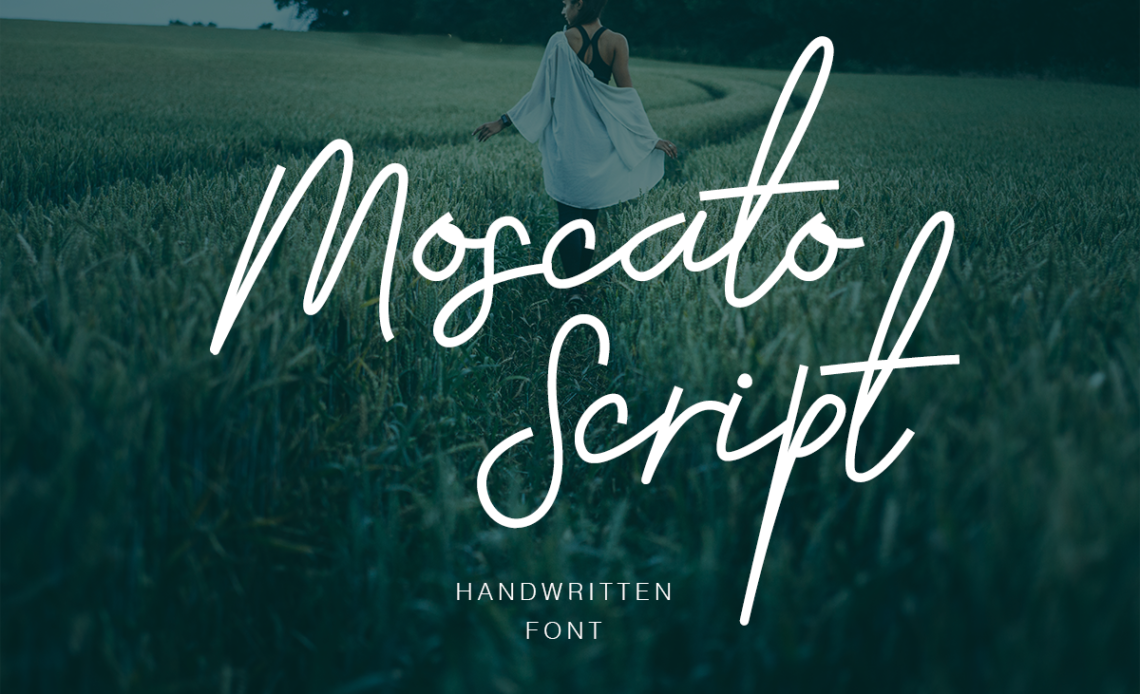
Dive into the world of sophisticated typography with Moscato Font, a script font family that exudes elegance and charm. Designed by the creative minds at Factory738, Moscato is more than just a font; it's a work of art, a brushstroke of creativity that will elevate your designs to new heights.
Prepare to be mesmerized by Moscato's sharp, dapper handwritten style, a unique blend of angular designations and captivating appeal. Each letter dances across the page, telling a story of finesse and grace. Whether you're creating logos, invitations, social media graphics, or any other design project, Moscato will add a touch of sophistication and personality that will leave a lasting impression.
With Moscato, you're not just downloading a font; you're embarking on a creative journey, a voyage where your words are transformed into stunning visual masterpieces. Its versatility knows no bounds, allowing you to craft designs that are both timeless and contemporary, classic and edgy. The possibilities are endless, limited only by your imagination.
Moscato is the perfect font for those who appreciate the finer things in life, those who seek beauty in every detail. It's a font that speaks to the heart and soul, evoking emotions and creating a lasting connection with your audience.
So, let your creativity soar and embrace the allure of Moscato Font. Experience the joy of transforming your words into breathtaking designs, captivating your audience with every stroke.